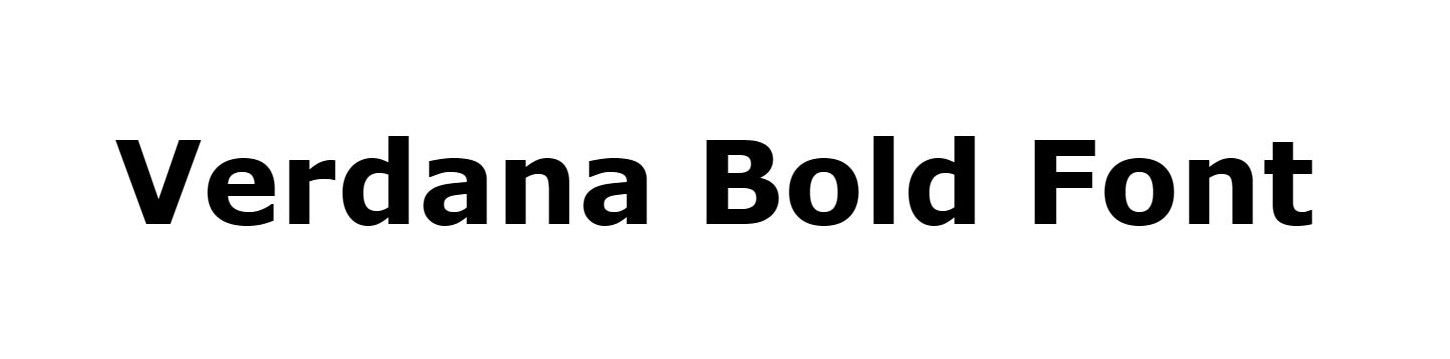
Verdana Font Preview
Verdana
Verdana is a sans serif font (1996). Its clean letters skip the little "feet" (serifs) of traditional type, so it looks modern and reads well on screens. You can download it for free and test it with your own words in the preview above.
What You Can Type With Verdana
With complete upper and lowercase letters and all ten digits, Verdana is ready for real wording, not just a single headline. Common punctuation such as &, !, ? and @ is included as well. It also has the accented letters you need for Spanish, French, German, Portuguese and Italian. On top of that, it includes Greek and Cyrillic characters.
How to Use the Alternate Letters in Verdana
Where Verdana Works Best
Designers usually reach for fonts like Verdana when they're making websites, app screens and clean logos. The file has no kerning data, so in logos and big titles check pairs like AV, To and Wa and tighten the spacing by hand. It works for headings and body text alike. If the download has several weights, use a heavier one for titles and a lighter one for paragraphs.
Does Verdana support accented letters?
Yes. Verdana includes the accented letters needed for Spanish, French, German, Portuguese and Italian, so it works for more than just English.